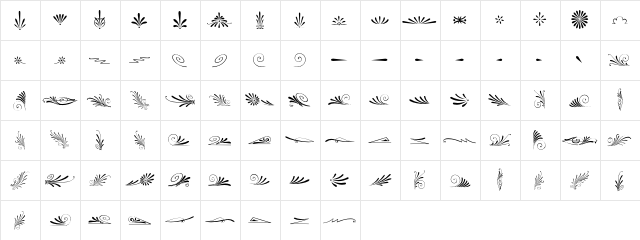
FleuronsThRee Regular
Design Context for FleuronsThRee Typeface
FleuronsThRee is a composed and adaptable typeface that performs quietly and consistently across a wide range of design contexts.